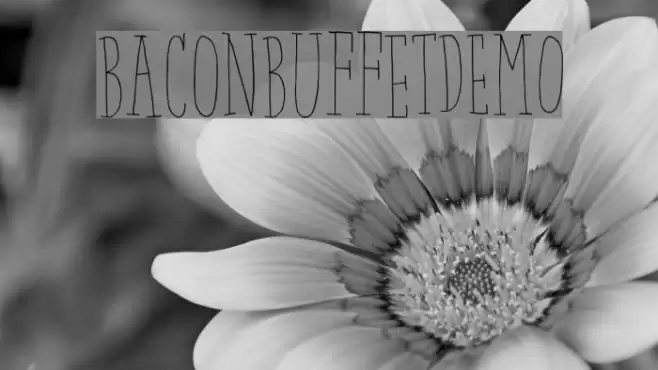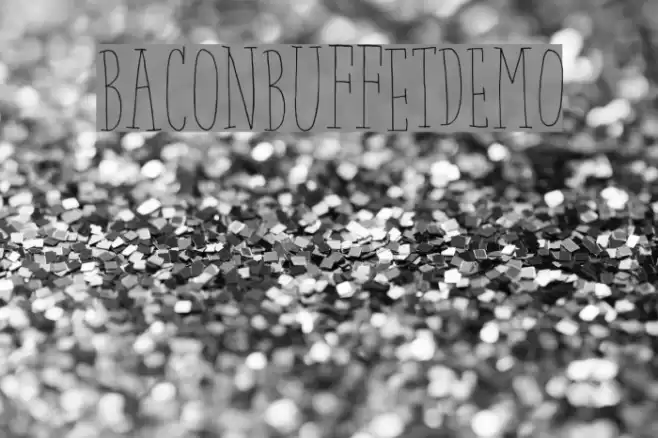
BaconBuffetDEMO Font
BaconBuffetDEMO Description
This font features a whimsical and playful design, characterized by its tall, narrow letterforms and subtle irregularities that give it a hand-drawn appearance. The strokes are thin and slightly uneven, adding to its quirky charm. The uppercase and lowercase letters maintain a consistent style, with a slight slant that suggests movement and energy. Numbers and special characters are designed to match the overall aesthetic, ensuring a cohesive look across all text elements. The font's unique style makes it stand out, making it suitable for creative and artistic projects.
A whimsical, hand-drawn font with tall, narrow letterforms and playful irregularities from Uncategorized fonts.
- Proposed Projects: Ideal for greeting cards, children's book illustrations, playful branding, and artistic posters.
- Weight: Light
- Overall Style: Playful, Artistic
- Use Case: Headlines, Logos, Artistic projects